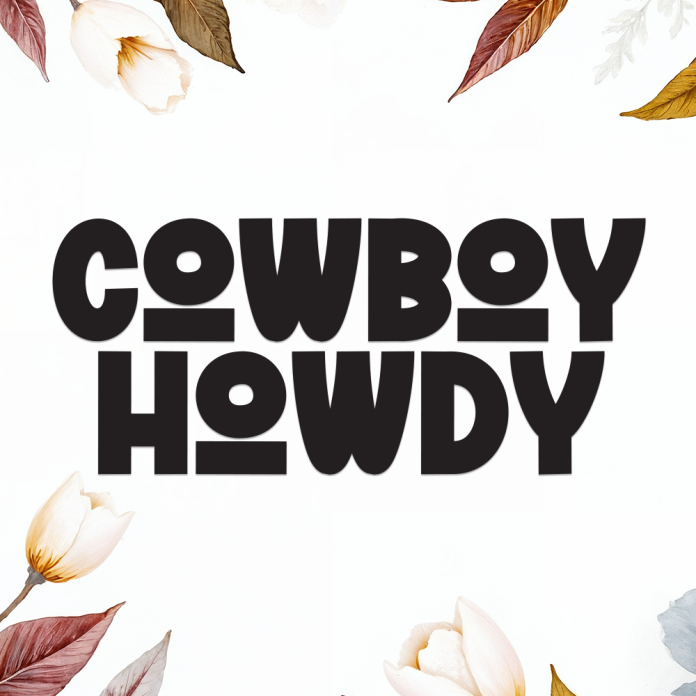
Cowboy Howdy is a bold, rustic display font that captures the spirit of the Wild West. With its strong, rugged characters and vintage charm, this font is perfect for western-themed projects, retro branding, country events, signage, and adventure-inspired designs.
Whether you're designing a rodeo poster or a saloon-style logo, Cowboy Howdy brings an authentic western feel to your work.
Western-Style Display Font
Bold and Decorative Letterforms
Saddle up your design with the bold personality of Cowboy Howdy.